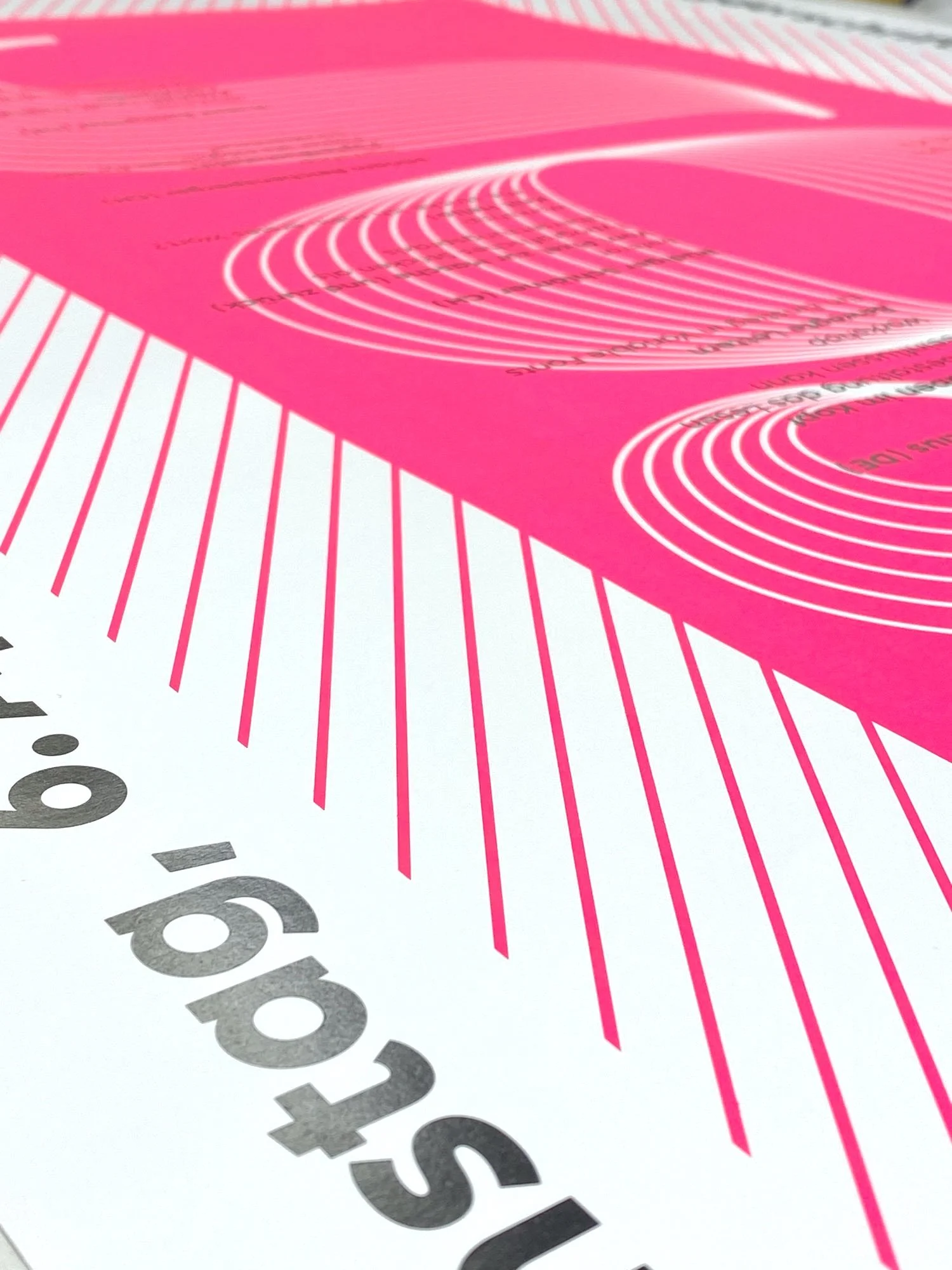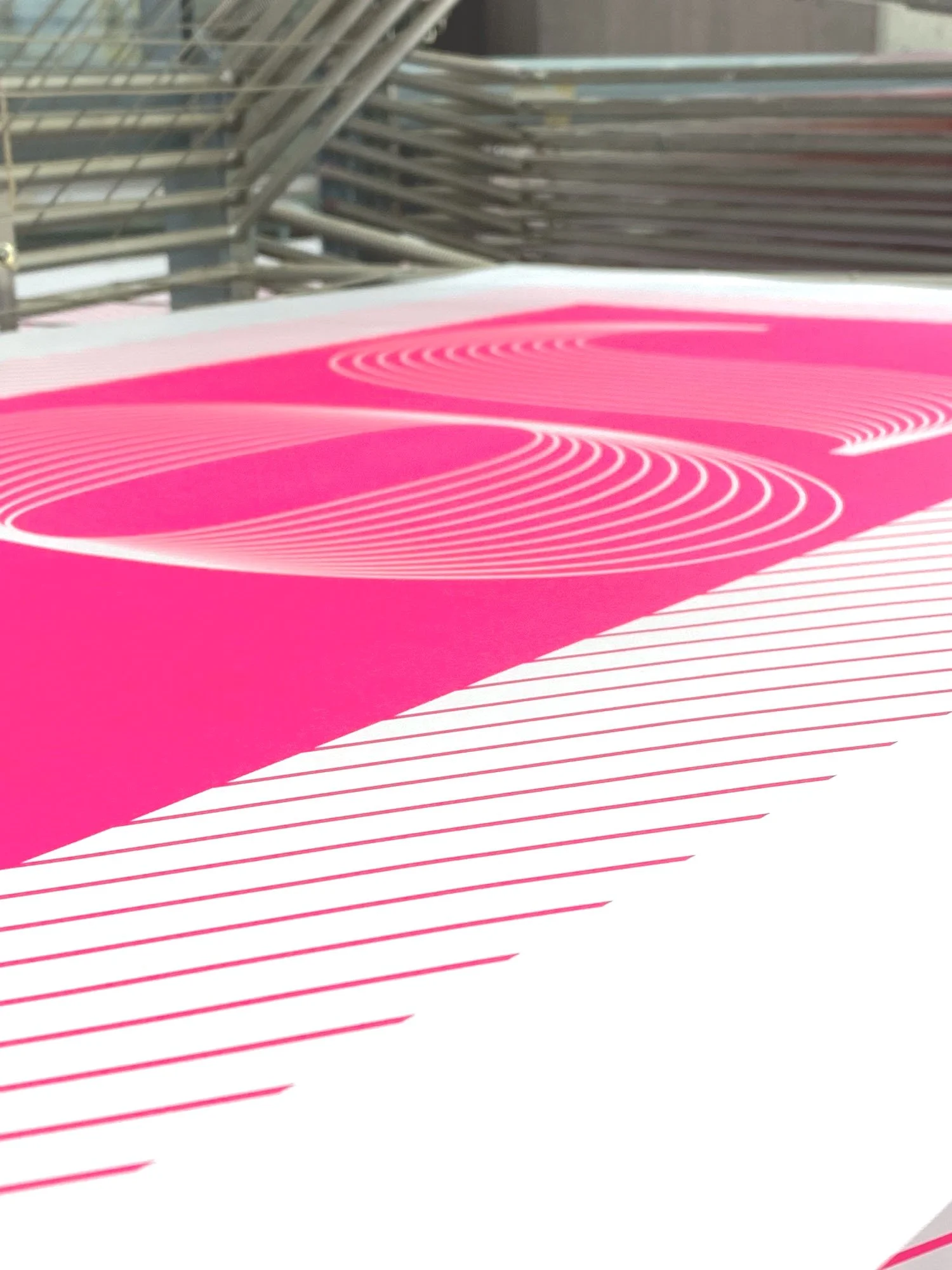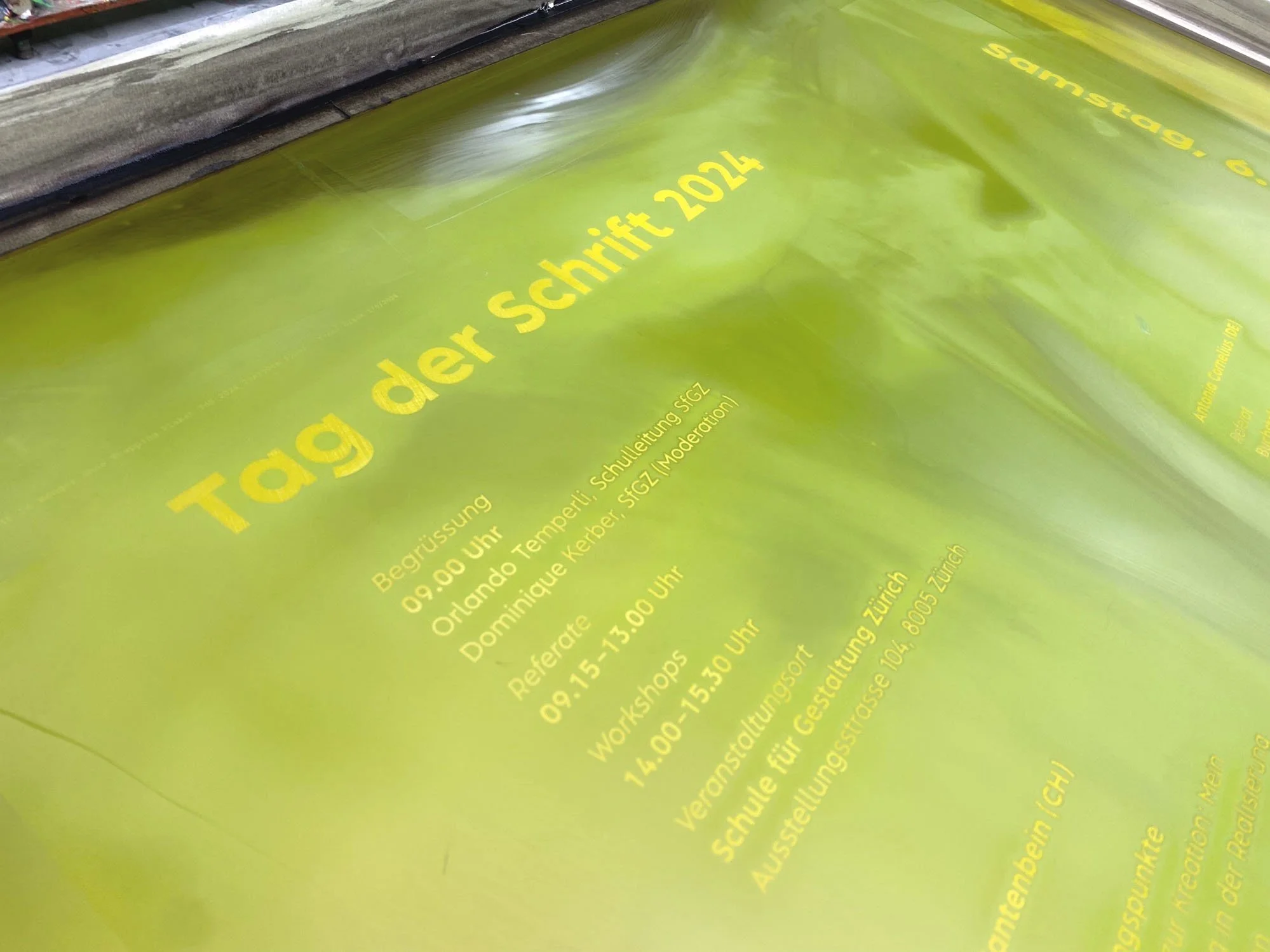
Albula Pro has been chosen for the poster design of the «Tag der Schrift 2024», an annual conference in Zurich that focuses on typography and type design, attracting experts and enthusiasts.
Using Albula Pro for the event's poster is an honor, showcasing the font's elegance and unique personality at its best. What better use for a typeface than on a poster for a typography conference can you think of?